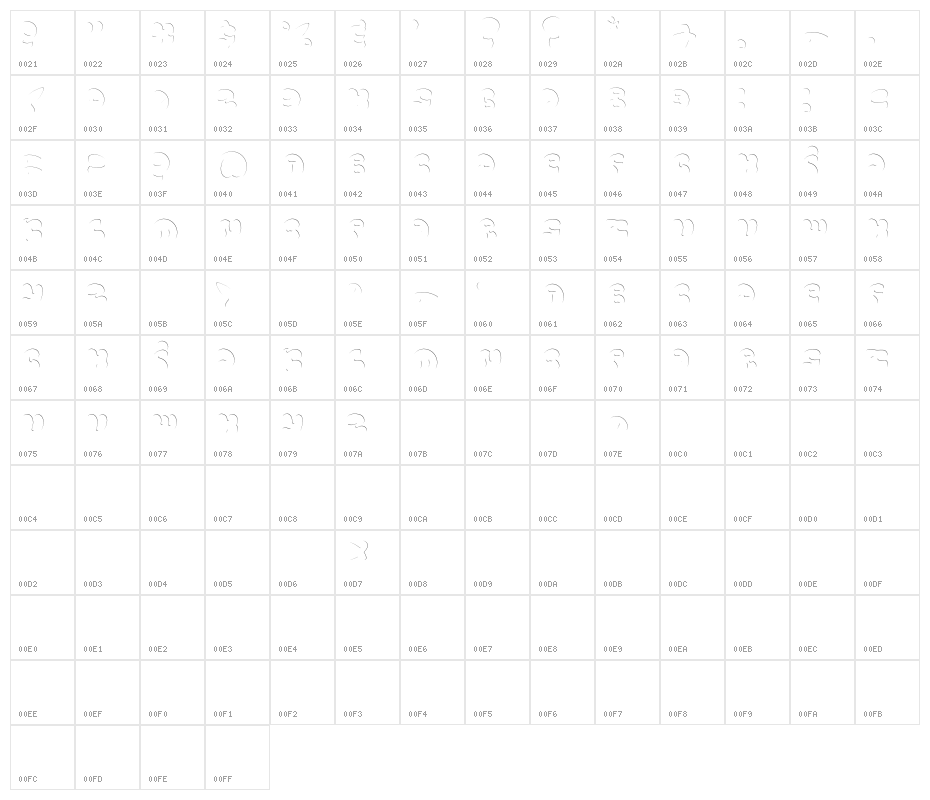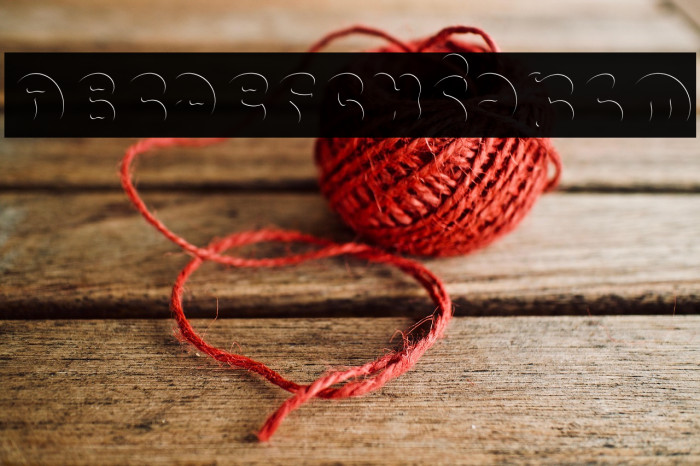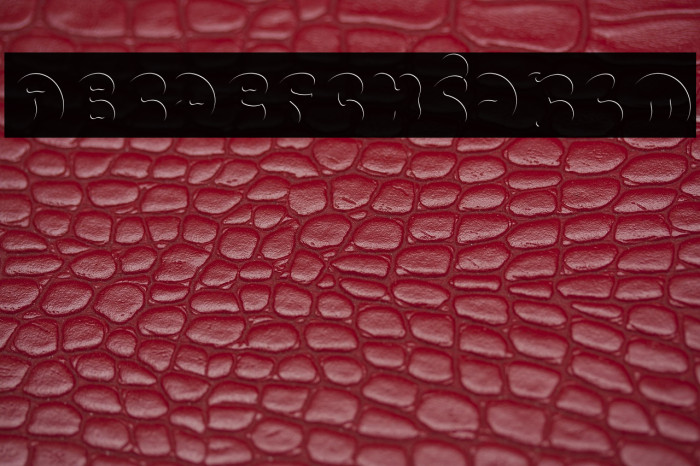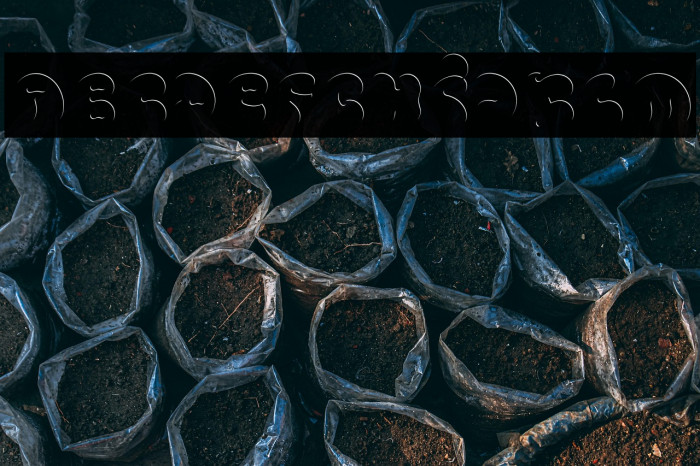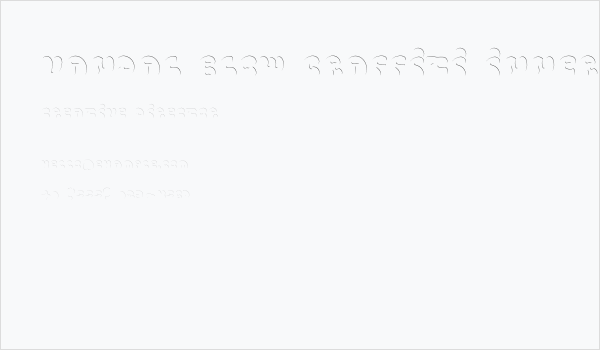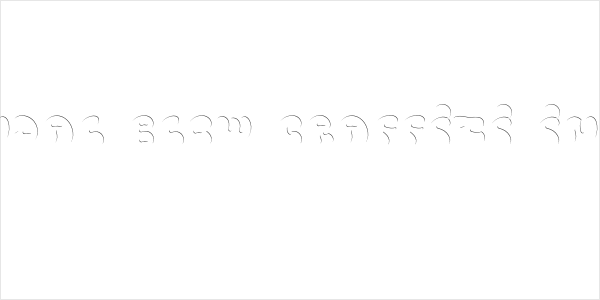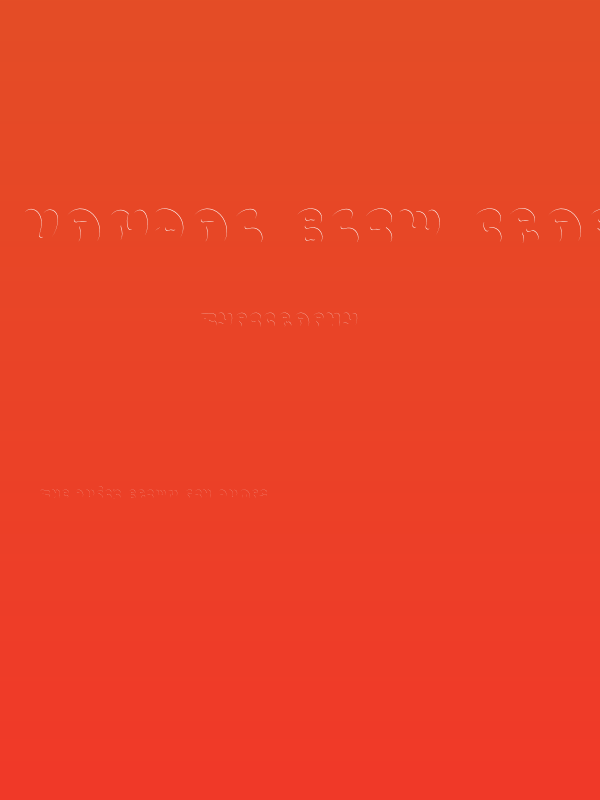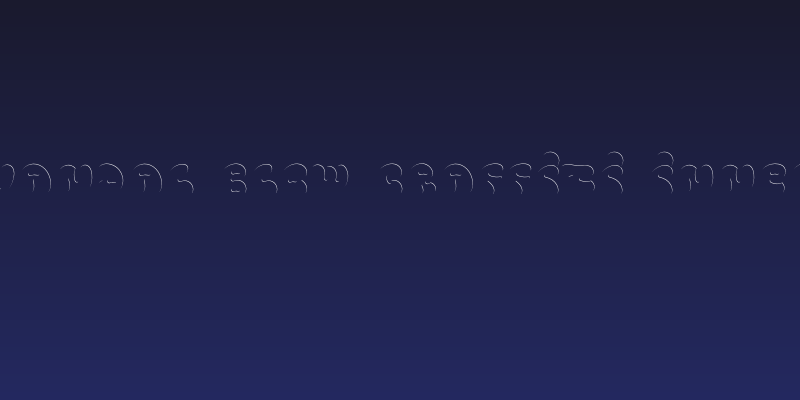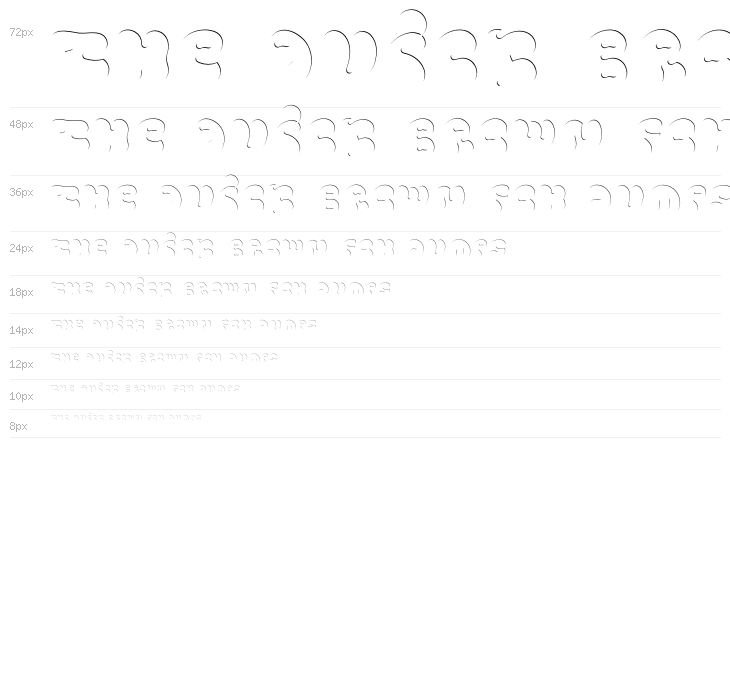
Vandal Blow Graffiti Inner Font
Vandal Blow Graffiti Inner Description
This font exhibits a unique graffiti-inspired style, characterized by its bold, rounded forms and playful curves. The letters are designed with an inner outline effect, giving them a hollow appearance that enhances their artistic flair. The font maintains a consistent thickness throughout, with smooth, flowing lines that create a sense of movement and energy. Its unconventional shapes and creative design make it stand out, capturing the essence of street art. The characters are evenly spaced, ensuring readability while maintaining their distinctive style.